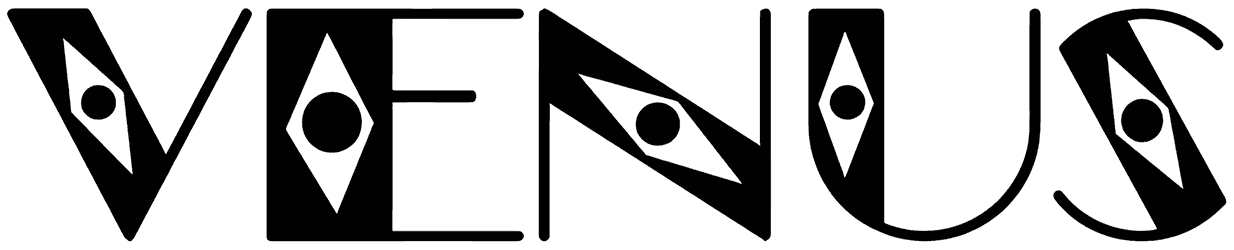
Venus Font
If you are searching for an old-fashioned mood for your design, take a look at Venus. This art deco font is a mixture of slender lines and stout sections with a novel design that has the shape of a royal flag. With three styles, Venus is unrivaled in displaying projects such as logos, flyers, backgrounds, and many more, even without lowercase.